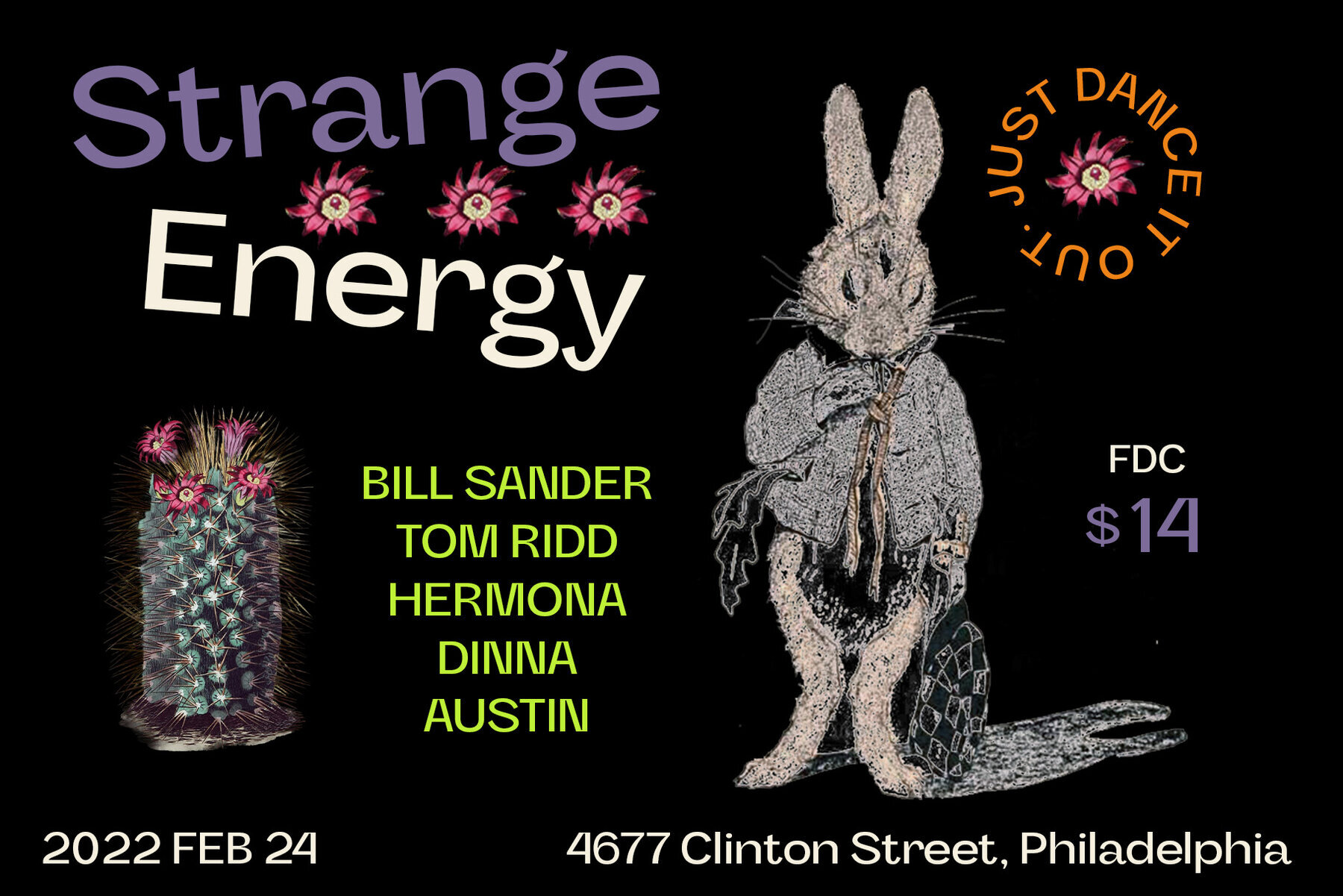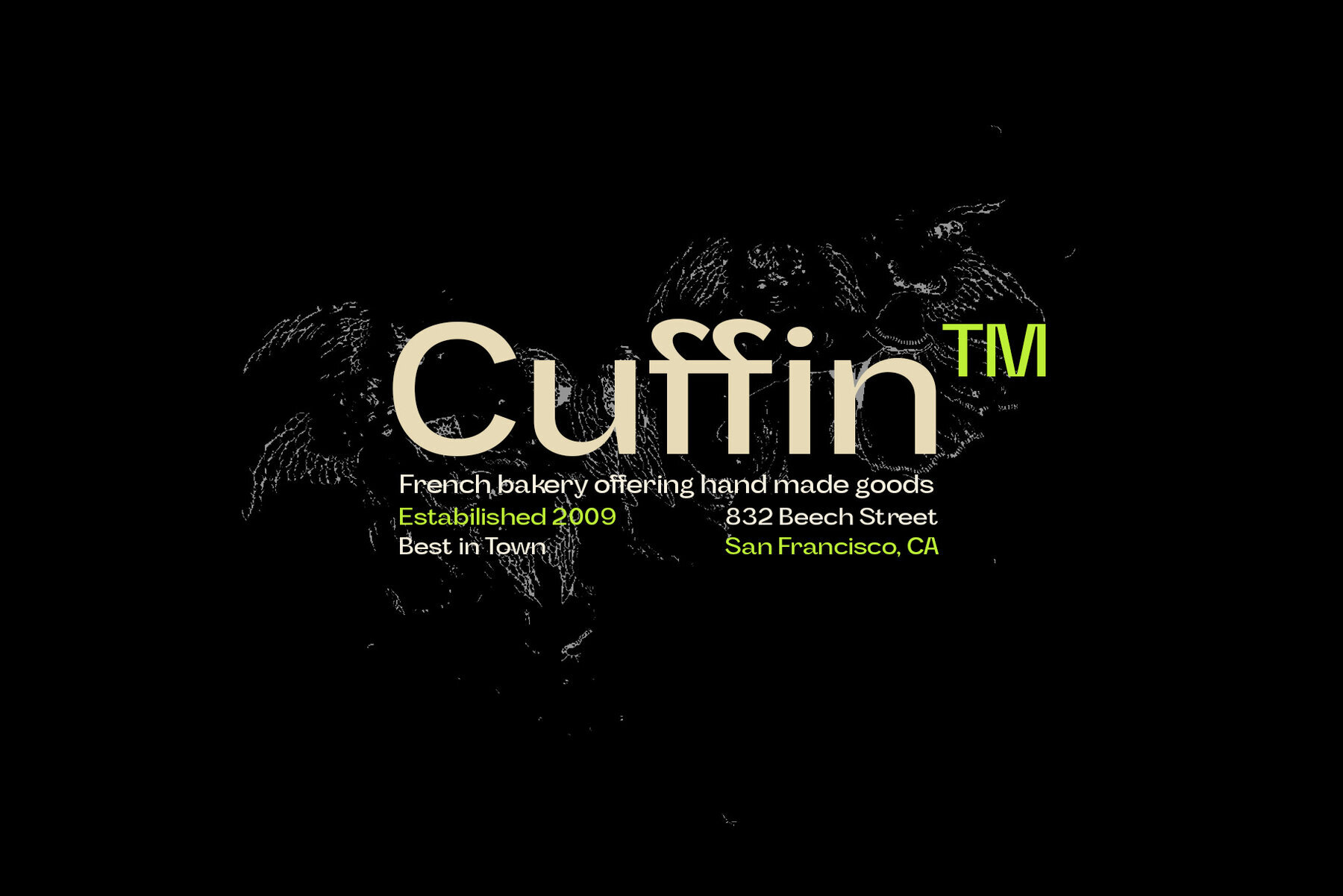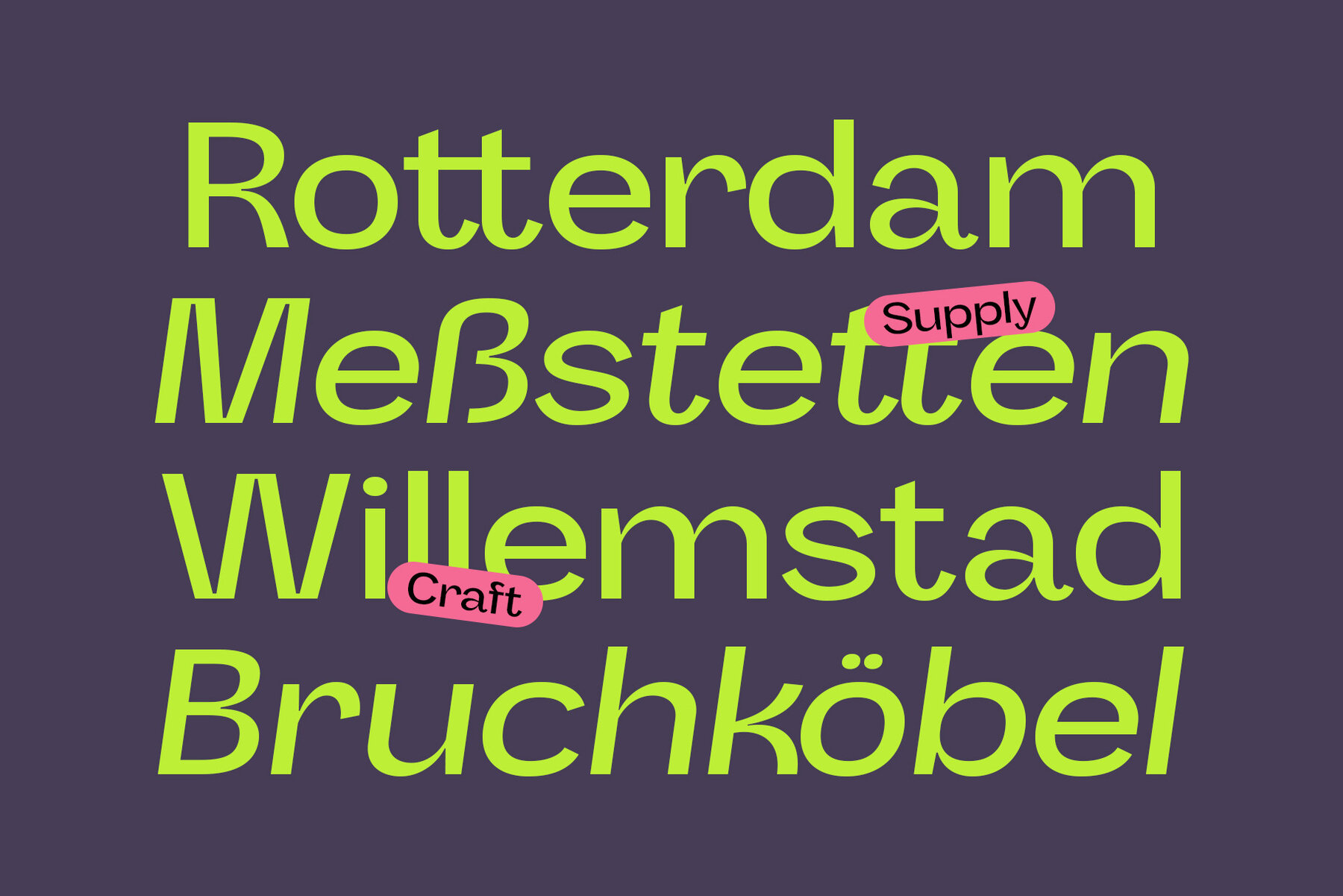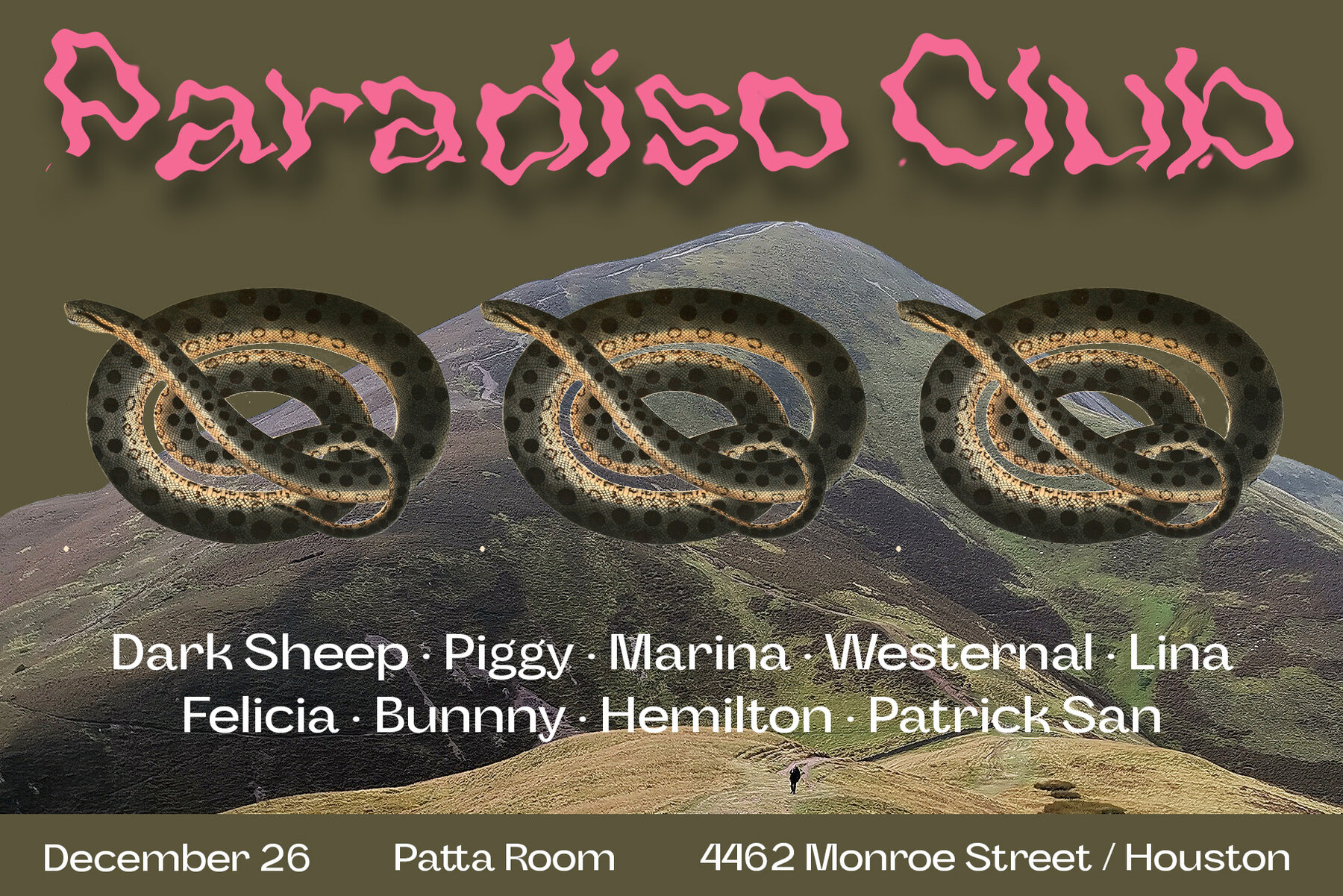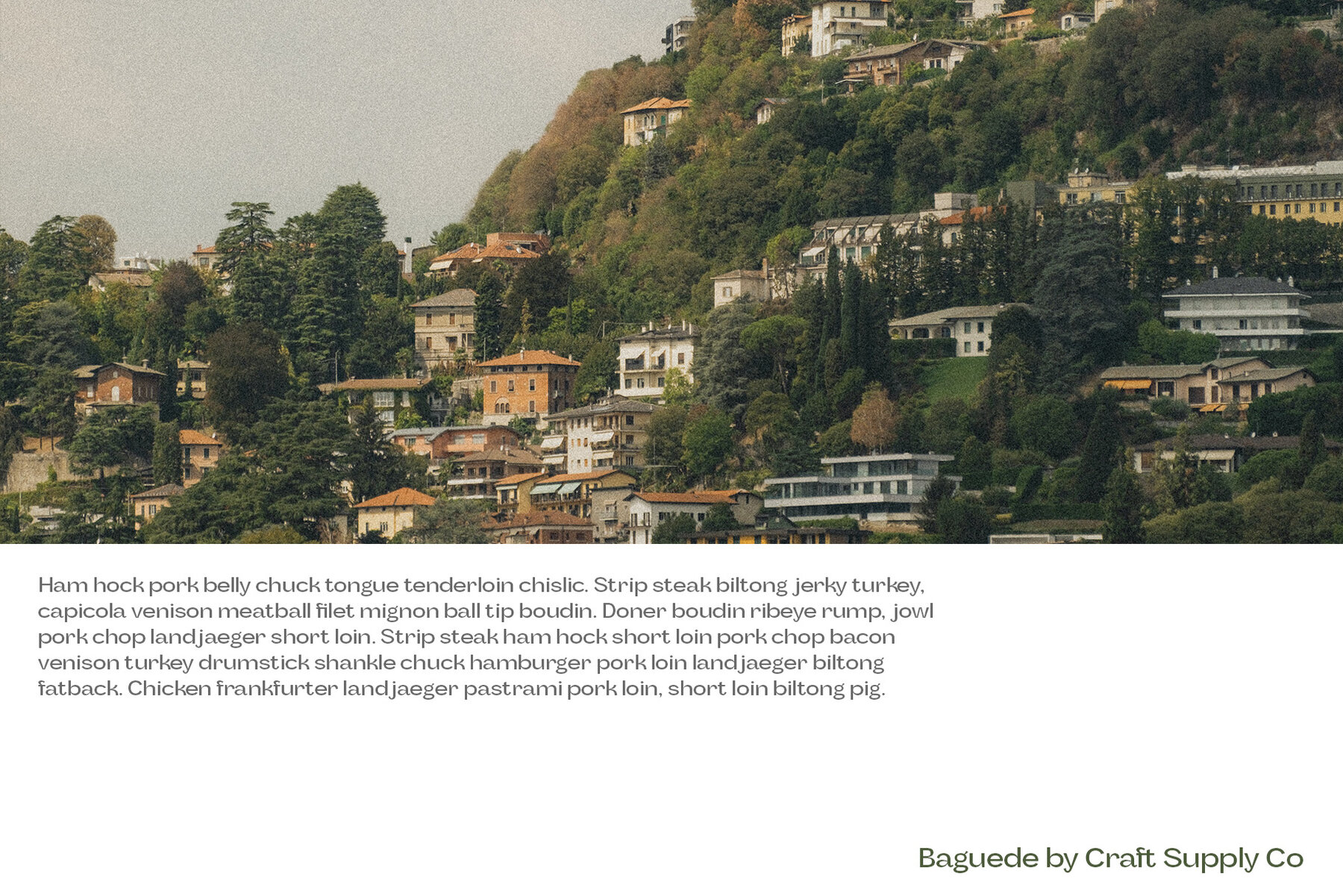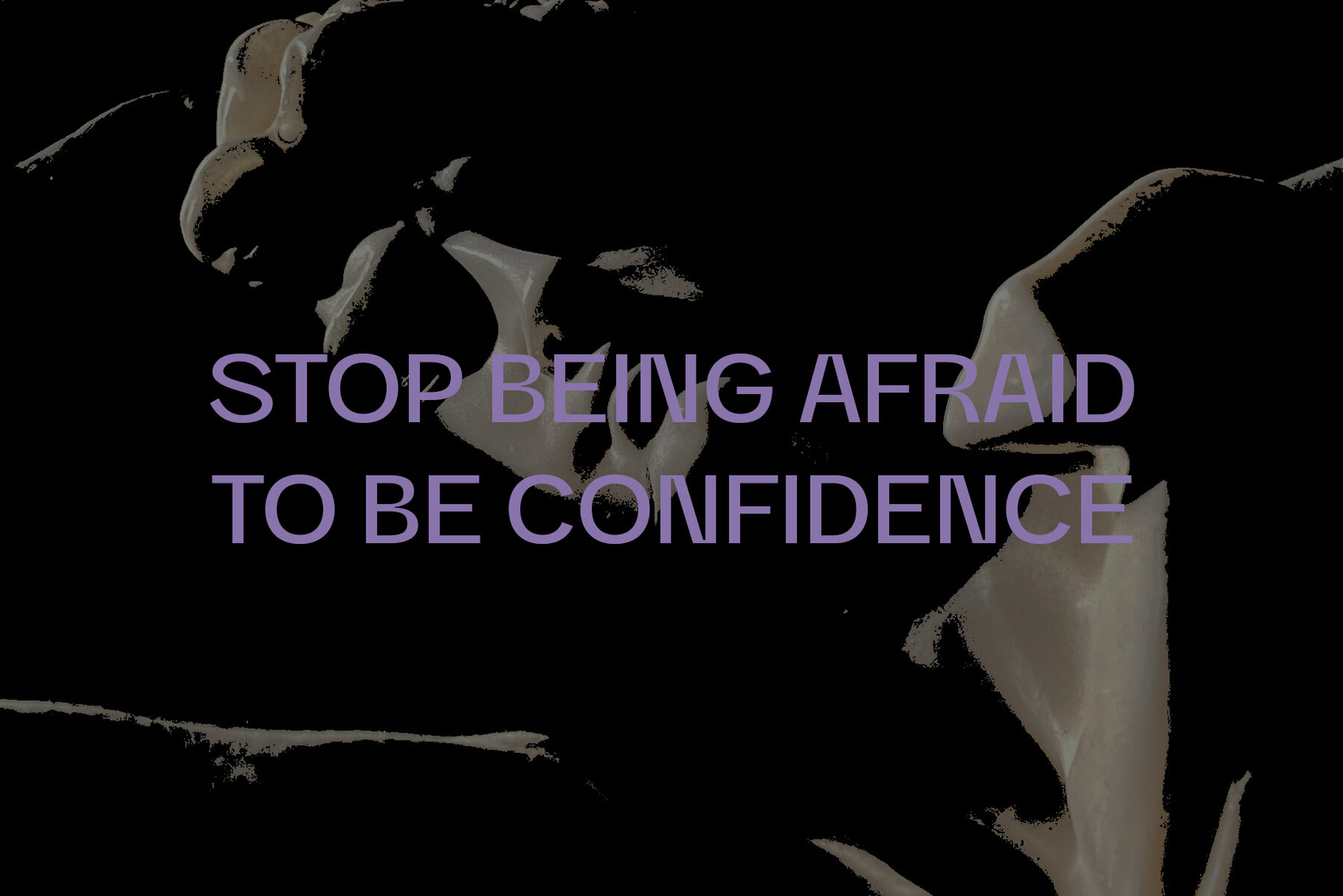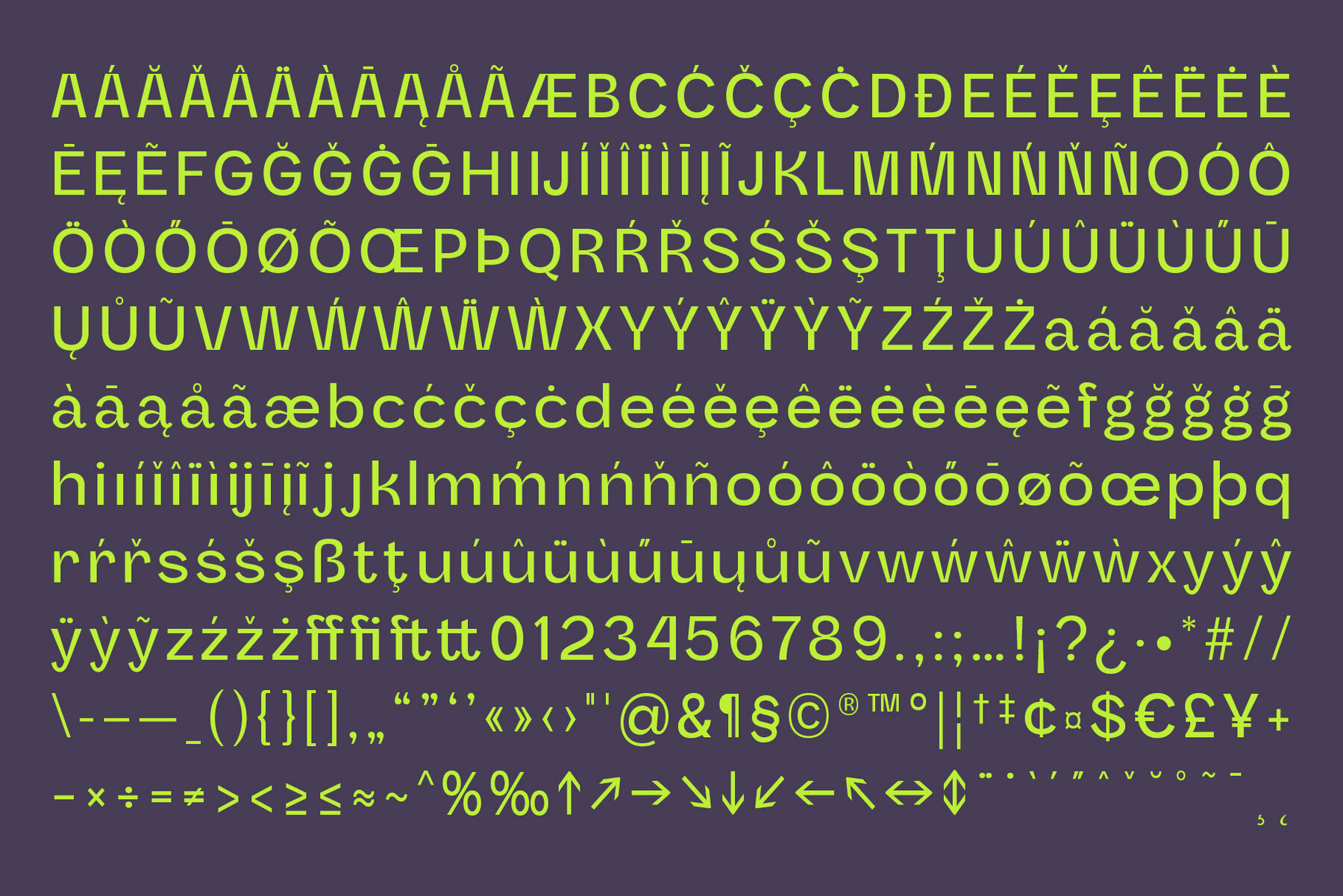
Baguede Font
Baguede by Craft Supply Co. is a post-modern grotesque typeface infused with a fanciful flair, designed to uphold a sophisticated aesthetic. Perfect for a variety of projects, Baguede enriches greeting cards, packaging designs, brand identities, and beyond. Be it a DIY endeavor, book title, or vintage-inspired poster, this typeface promises to add a stylish edge to any creative undertaking.Baguede: A Grotesque Typeface with a Touch of Sophistication